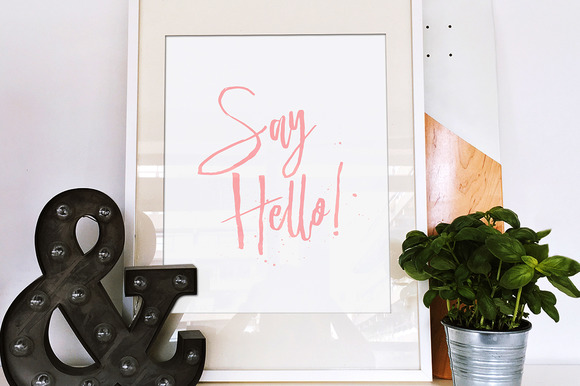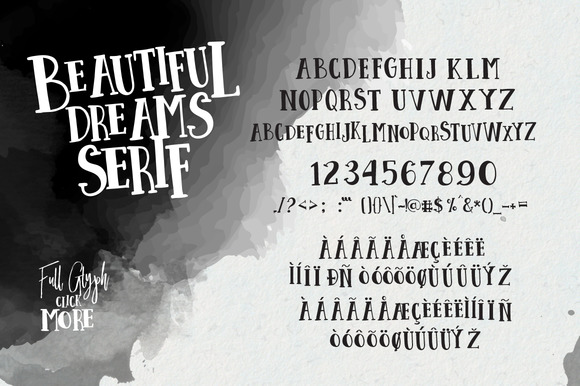
Beautiful Dreams Font
Beautiful Dreams – Font Duo – Free Demo
Introducing to you the amazing brush font. Duo Beautiful Dreams font, a font with a handmade brush calligraphy nằm imperfect, perfect for your next design, như logos, quotes printed, handwritten quotes, invitations, cards, product packaging, merchandise, social media & greeting cards, headers and and anything else about your imagination.